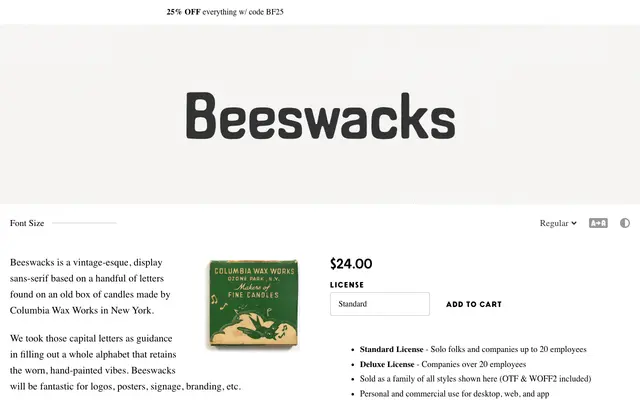
Beeswacks
A single-weight display sans-serif drawn from hand-painted lettering found on an antique Columbia Wax Works candle box, expanded into a full character set with a deliberately worn quality.
The typeface originates from a small set of capital letters discovered on an old New York candle box, with Simple Bits filling out the remaining characters to match the worn, hand-painted character of the source material. It ships in one weight with upper and lowercase, numerals, diacritics for extended Latin coverage, alternate glyphs, and script-style discretionary ligatures for common words such as 'the', 'and' and 'for'. Best suited to logos, poster headlines, signage and branding where a rough vintage edge is appropriate.
A single-weight display sans-serif with a hand-painted, worn aesthetic drawn from vintage lettering on a candle box; clearly intended for display use rather than text setting.